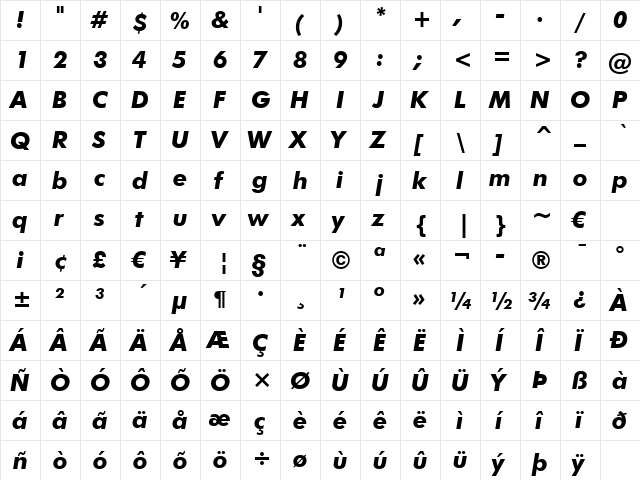
Futura Md BT Bold Italic Font Preview
Design Context for Futura Md BT Typeface
Futura Md BT channels digital-age aesthetics through its sharp, structured letterforms — ideal for brands that want to signal innovation. The dynamic lean of this cut emphasises speed and emphasis in any layout. The heavy weight commands attention and anchors typographic hierarchies.
Pro Tip: Use Futura Md BT in combination with a neutral sans for body text. Let it define the brand voice in headlines while keeping reading comfortable elsewhere.